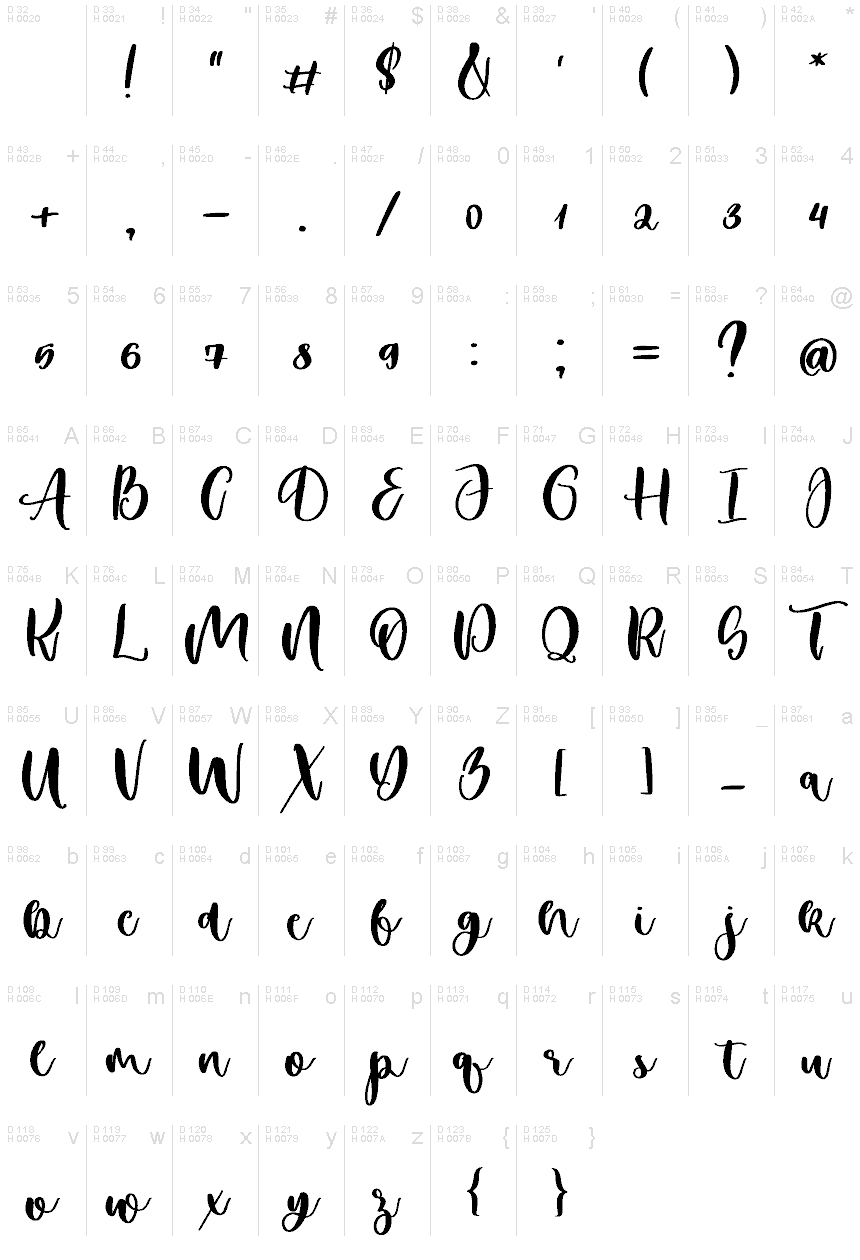
Bohema Pink
Bohema Pink font from Stasia K is a handwritten script with expressive additions to each stroke. These curly embellishments inflict a natural flowing motion that features throughout the font’s characters. The design has an artistic flair both as individual letters and also as whole logotype texts.
Alternates
Multilingual support
Cyrillic